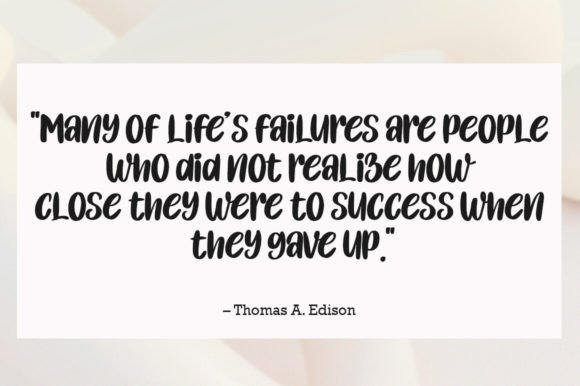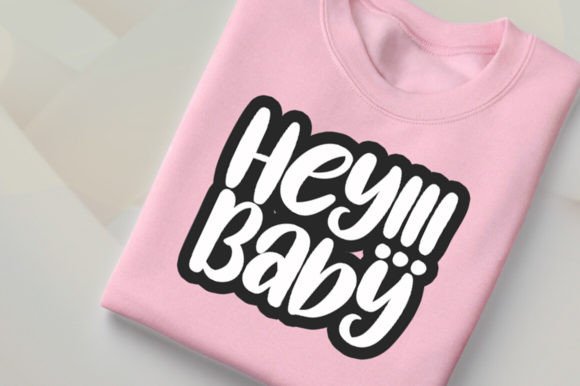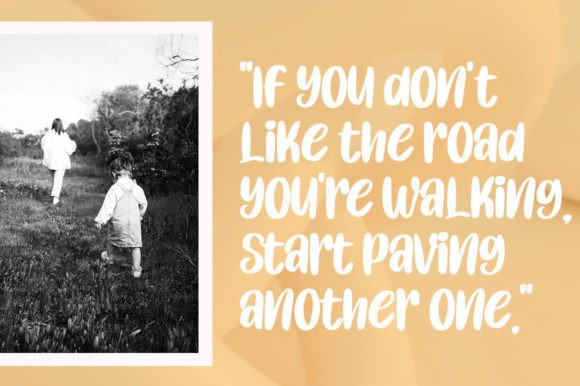
Introduction to Rayking Font
Remember the thrill of rummaging through your grandmother’s old craft box, discovering a treasure trove of colorful markers, stickers, and glitter? For designers and creatives, finding the perfect font can evoke a similar sense of excitement and possibility. One such font that’s sure to spark joy is the Rayking Font – a fun and handwritten display font that embodies playfulness and originality.
As a valuable design resource, the Rayking Font is perfect for a wide range of creative projects, from children’s activities and school projects to clothing, food posters, and birthday cards. With its high-quality design and transparent background, this font is a versatile choice for any designer looking to add a touch of whimsy to their work.
Key Features of Rayking Font
- High-quality design resource suitable for creative projects, offering a professional look and feel.
- Features a transparent background, allowing for seamless integration with any design or background.
- Unique, modern design with clean lines and elegant typography, perfect for branding, logos, and other creative projects.
Honest Review: Rayking Font
I recently came across the Rayking Font while searching for a free download to add to my design project. I was impressed by its clean and modern aesthetic, making it a great addition to any creative project.
Here are some things that work well with the Rayking Font:
- ✨ High quality design that is perfect for digital displays.
- ✨ Transparent background, allowing for easy background color changes.
- ✨ Wide range of applications, from business to personal projects.
- ⚠️ Limited character set, which may not be suitable for complex text-based designs.
- ⚠️ May not be the best choice for printing, as the font may not render well in certain situations.
Overall, I think the Rayking Font is a great design resource for those looking for a modern and high quality font. While it may have some limitations, its benefits make it a worthwhile download for any design project.
Tips for Getting the Most Out of Rayking Font
To get the most out of Rayking Font, use it in conjunction with other design elements, such as images and shapes, to create a unique and eye-catching visual effect. You can also experiment with different font sizes, colors, and styles to create a high-quality design that suits your creative project.
Rayking Font is a versatile design resource that can be used in a variety of creative projects, including branding, marketing materials, and social media graphics. Its transparent background makes it easy to use in conjunction with other design elements, making it a valuable addition to any design resource library.